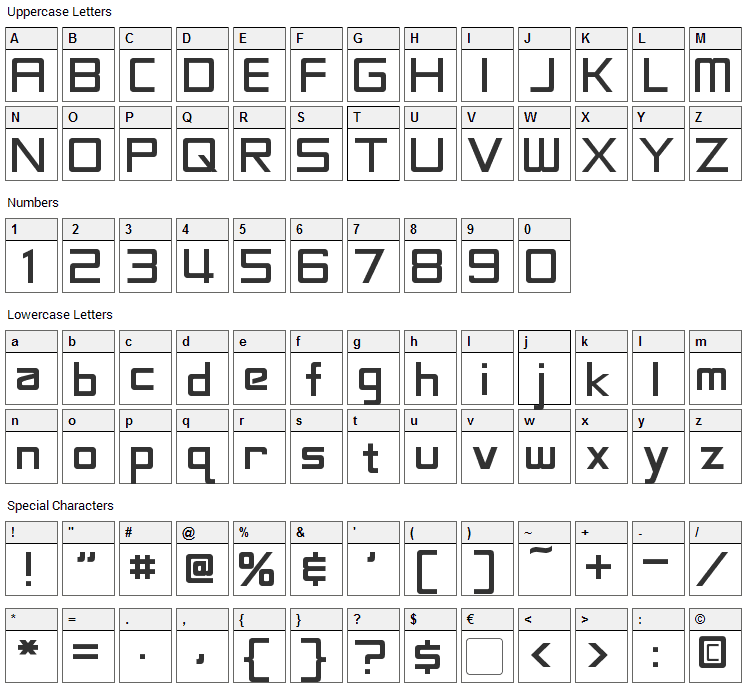
LaBeouf Font
This simple techno-typeface is based on the subtitle logos found in Paramount's "Indiana Jones" movie series. Includes accent characters, euro, and extended punctuation. Includes bold and italic versions.